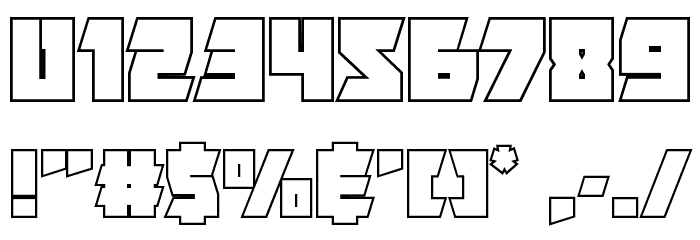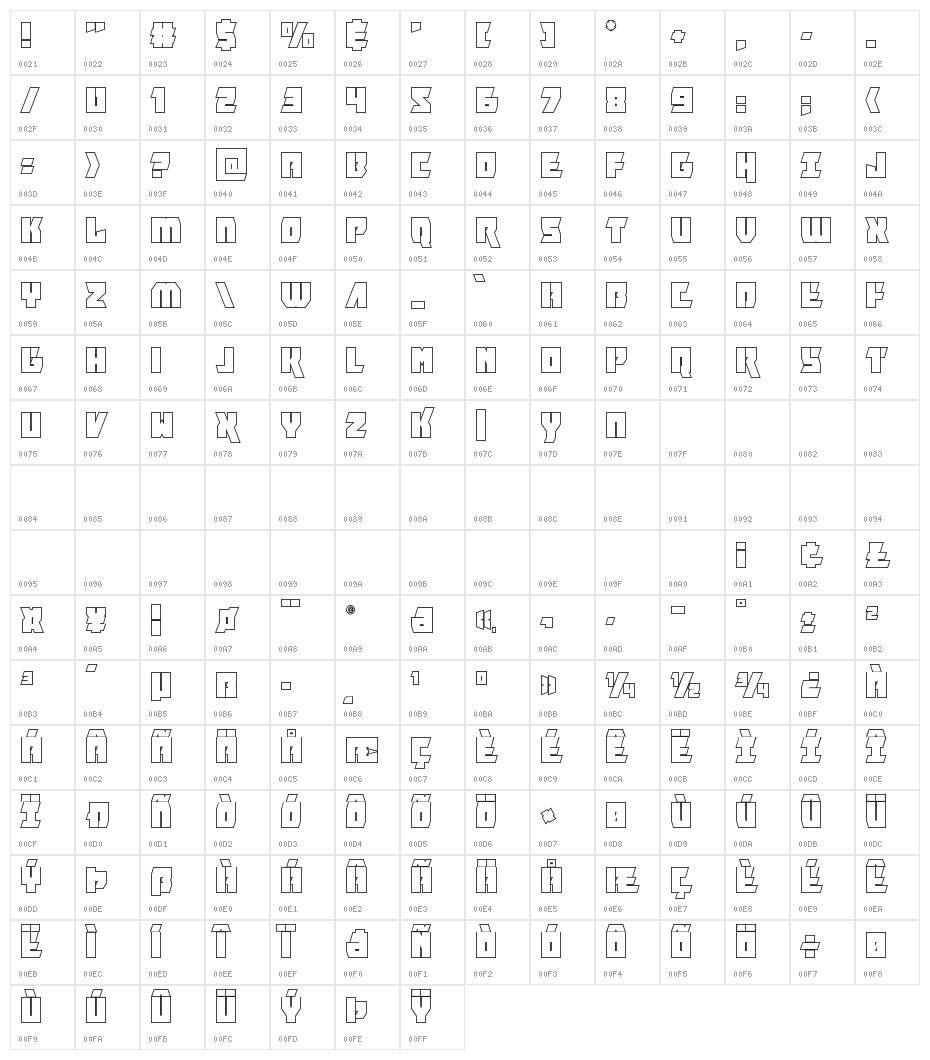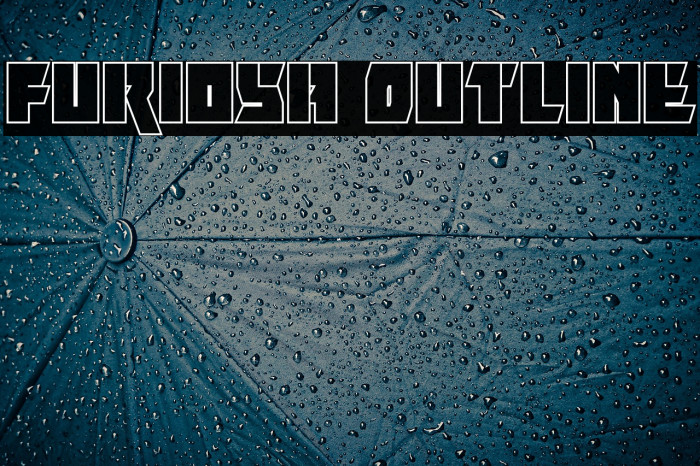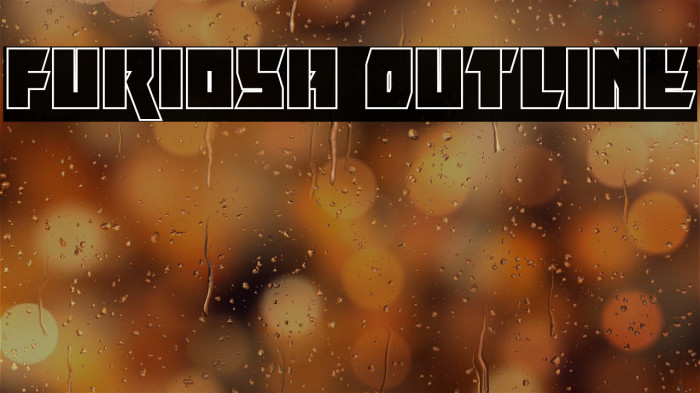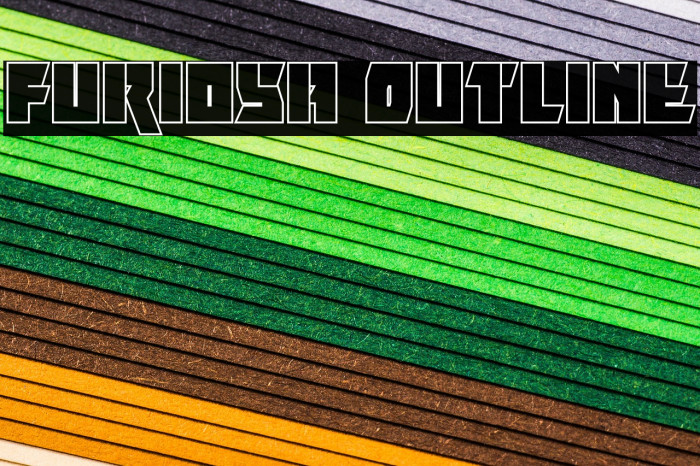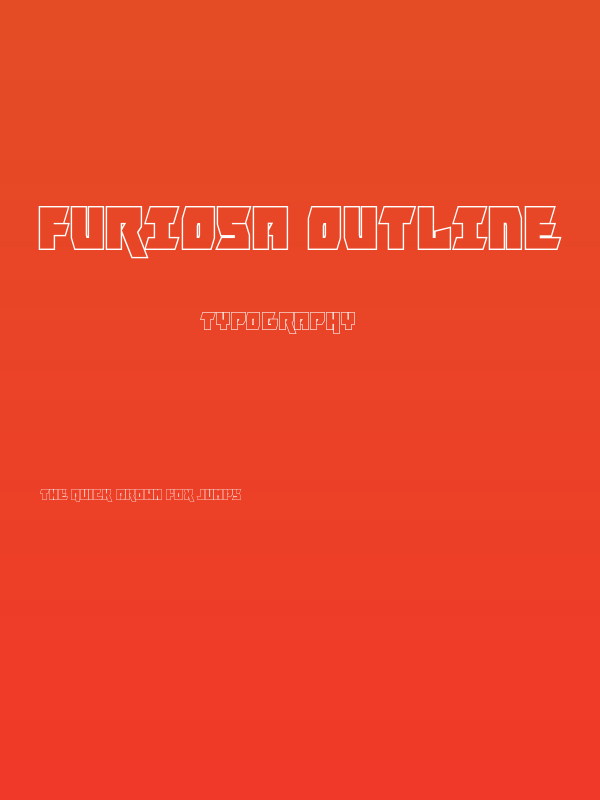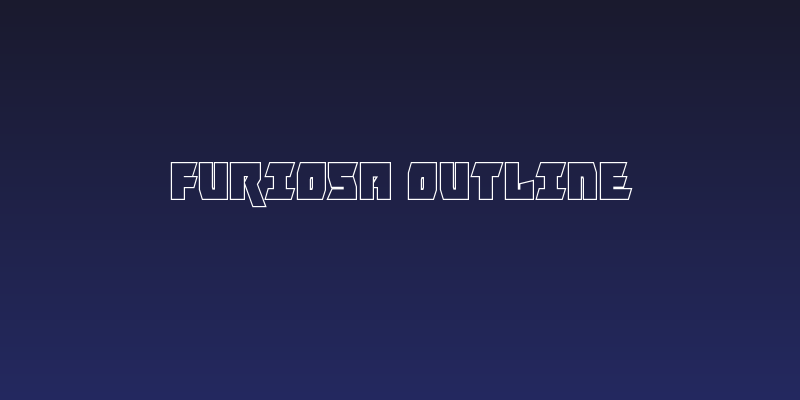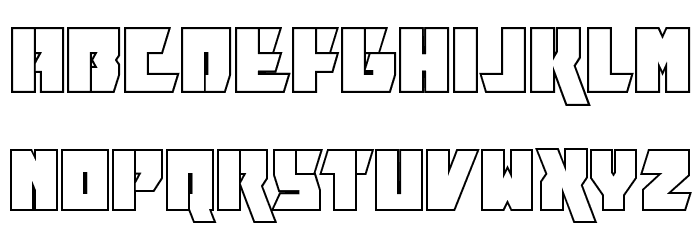
Furiosa Outline Font
Furiosa Outline Description
This font features a bold, geometric outline style with sharp angles and a futuristic aesthetic. Each character is crafted with precision, creating a sense of movement and energy. The uppercase letters are particularly striking, with a blocky, angular design that commands attention. The lowercase letters maintain the same geometric style, ensuring consistency across the typeface. Numbers and special characters are equally bold and dynamic, making this font suitable for a wide range of creative applications. The outline design adds a unique dimension, allowing for creative layering and color play in design projects.
| Proposed Projects | Ideal for sci-fi themed posters, video game graphics, branding for tech companies, and any project requiring a modern, edgy look. |